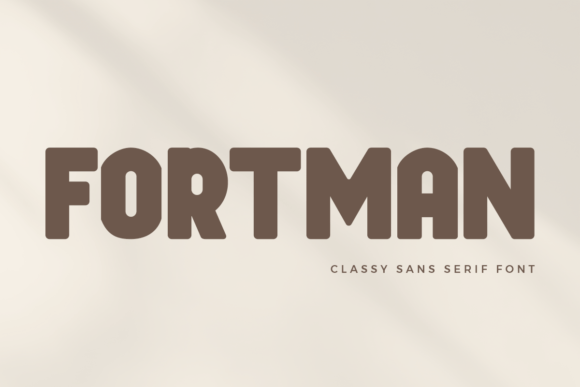
Introducing Fortman Font, the typeface that brings a touch of casual charm and effortless readability to your designs. Step into a world of captivating typography where your words come alive with a friendly and approachable aura. Fortman's sans serif design exudes a welcoming ambiance, making it the perfect choice for creating logos, social media posts, and any project where you want to connect with your audience on a personal level.
With Fortman Font, you'll discover a versatile font family that adapts seamlessly to a variety of design styles. Its clean lines and open letterforms create a sense of clarity and legibility, ensuring that your message is conveyed with crystal-clear precision. Whether you're crafting a timeless logo, engaging social media content, or designing captivating packaging, Fortman Font will elevate your creations with its inherent charm and visual appeal.
Fortman Font is the brainchild of fontkong, a renowned font designer with a passion for creating fonts that resonate with the modern audience. Inspired by the desire to provide designers with a typeface that combines casual elegance with unwavering readability, fontkong meticulously crafted each character of Fortman, ensuring that it carries a unique personality while maintaining its functional purpose. The result is a font that not only looks beautiful but also performs exceptionally in a wide range of applications.
Choosing Fortman Font is not just a design decision; it's an investment in your brand's visual identity. Its friendly and inviting nature will draw your audience in, creating an emotional connection that fosters brand loyalty. Whether you're a seasoned designer or a creative entrepreneur, Fortman Font will become your go-to choice for projects where you want to leave a lasting impression.